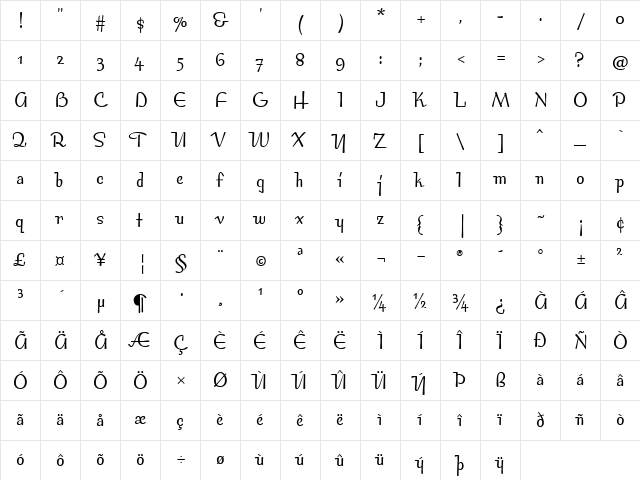
UVN Doi Moi Regular Font Preview
UVN Doi Moi Regular
UVN Doi Moi Regular Font Details
Design Context for UVN Doi Moi Typeface
UVN Doi Moi is a composed and adaptable typeface that performs quietly and consistently across a wide range of design contexts.